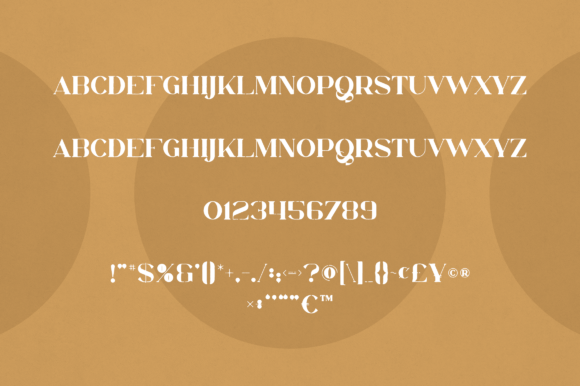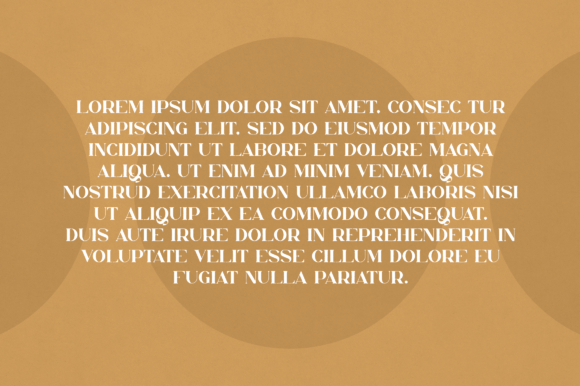
The Elegance of Augusta Font: A Designer’s New Best Friend
I’ll never forget the time I was working on a branding project for a luxury home goods client. I had spent hours pouring over design concepts, but something was missing – the perfect font. That’s when I stumbled upon Augusta, an elegant and versatile serif font that instantly elevated my design. If you’re a designer, crafter, or creative hobbyist looking for a font that will make your typography truly unique, you’re in luck! In this article, we’ll dive into the world of Augusta Font and explore its features, uses, and alternatives.
An Honest Review of Augusta Font
- ✨ Elegant and sophisticated design that’s perfect for luxury brands
- ✅ Versatile and adaptable to various design projects, from logos to magazine headers
- 💫 Beautifully crafted to work well with both images and solid backgrounds
- 🎨 Highly legible, even at small font sizes
While Augusta Font is an excellent choice for many design projects, there are a few things to keep in mind:
- 🤔 Some users may find the font a bit too ornate for very casual or playful designs
- ⚠️ As with any serif font, it may not be the best choice for very small text sizes or low-resolution displays
A Practical Guide to Using Augusta Font
The Story Behind Augusta Font
Augusta Font was designed with the intention of creating a elegant and versatile serif font that would meet the needs of designers and crafters. The design process involved careful consideration of typographic details, resulting in a font that is both beautiful and functional.
| Font Name | Augusta Font |
| Author | vladfedotovv |
Q: What type of projects is Augusta Font best suited for?
A: Augusta Font is perfect for branding projects, home-ware designs, product packaging, magazine headers, and more.
Q: Is Augusta Font easy to read?
A: Yes, Augusta Font is highly legible, even at small font sizes.
Q: Can I use Augusta Font with images?
A: Absolutely! Augusta Font works beautifully with both images and solid backgrounds.